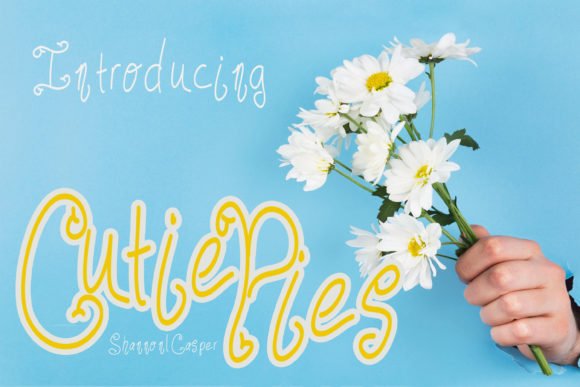
Introduction to Cutie Pies Font
Cutie Pies is an easy and fun script font for just about any craft or design.
Give your next project a nice touch with this playful new font .
Why Choose Cutie Pies Font?